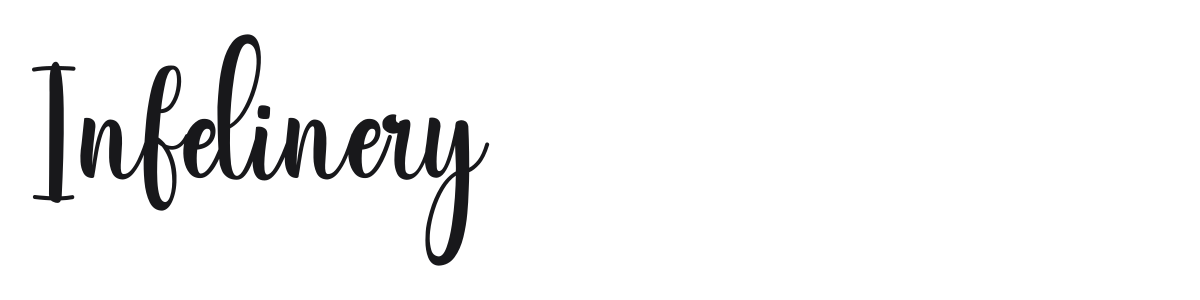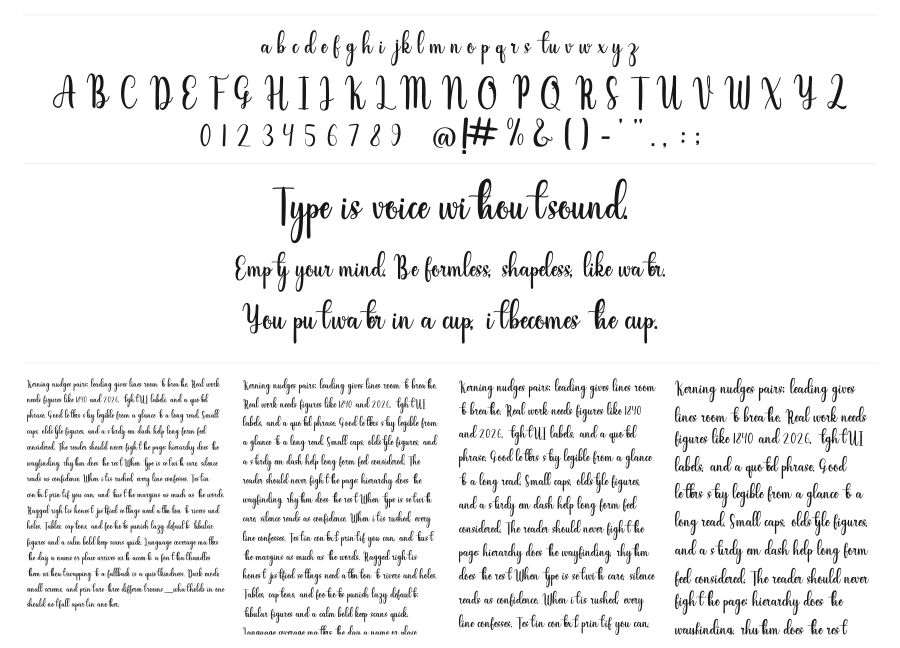
Infelinery
Infelinery is a bold connected casual script with smooth looping strokes and a lively rightward lean. The moderate stroke contrast gives it the feel of confident hand-lettering without tipping into stiff formality. It's at home on wedding stationery, product packaging, or anywhere warmth and personality are needed.